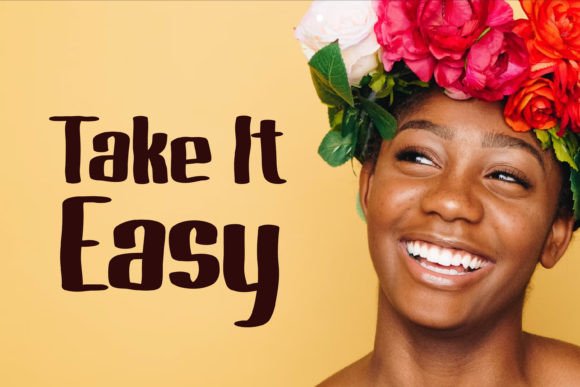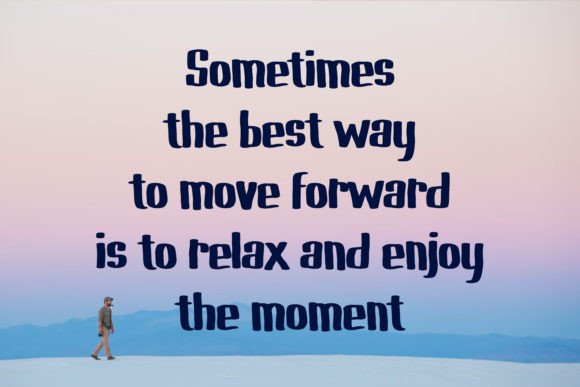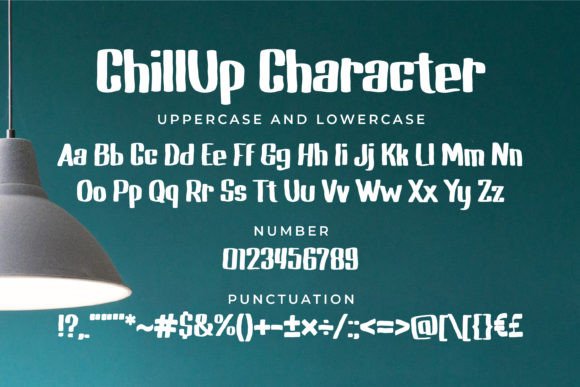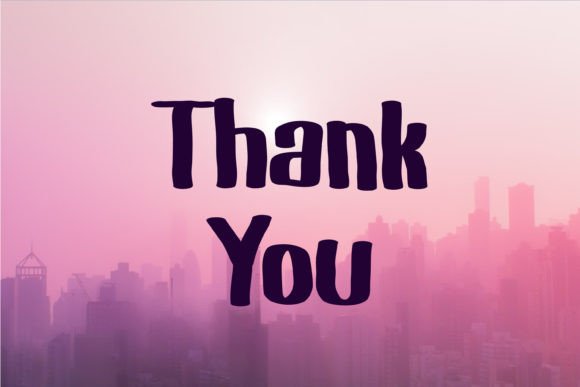
Introducing ChillUp: The Ultimate Playful Display Font for Creative Projects
Have you ever been in the middle of a design project, and suddenly, you just can’t seem to find the right font? I recall a particularly frustrating experience while working on a branding project for a trendy new coffee shop. The client wanted a font that was fun, casual, and conveyed a sense of relaxation. I scoured the internet, tried out countless fonts, but nothing seemed quite right. That was until I stumbled upon ChillUp, a handwritten playful display font that instantly brought a chill and joyful vibe to my designs!
What Makes ChillUp So Special?
ChillUp is more than just a font – it’s an experience. With its relaxed strokes and lively character, it’s perfect for projects that need a fun, casual, and creative flair. Whether you’re working on branding, posters, packaging, or social media content, ChillUp adds a refreshing touch that’s sure to capture attention.
My Honest Review of ChillUp
So, what do I love about ChillUp? Here are a few things that make it stand out:
- ✨ Unique and playful design: ChillUp has a one-of-a-kind look that’s sure to make your designs pop.
- ✅ Easy to read: Despite its playful nature, ChillUp is surprisingly easy to read, even at smaller font sizes.
- 💡 Versatile: ChillUp works well for a wide range of design projects, from branding to social media content.
Of course, no font is perfect, and ChillUp does have a few small quirks:
- 🤔 Limited use in formal contexts: ChillUp is a playful font, so it may not be the best choice for formal or professional projects.
- ⚠️ Some characters may require manual kerning: While ChillUp is generally well-spaced, some characters may require manual kerning to achieve optimal results.
The Story Behind ChillUp
ChillUp was designed with one goal in mind: to create a font that would bring a sense of relaxation and joy to designs. Its creator, a talented type designer, was inspired by the laid-back vibes of a California beach town. The result is a font that’s perfect for any project that needs a fun, casual touch.
| What type of projects is ChillUp best suited for? | ChillUp is perfect for projects that need a fun, casual, and creative flair, such as branding, posters, packaging, and social media content. |
| Is ChillUp easy to read? | Yes, despite its playful nature, ChillUp is surprisingly easy to read, even at smaller font sizes. |
| Does ChillUp support OpenType features? | Yes, ChillUp supports OpenType features, such as glyphs and stylistic alternates, which can add more creativity to your text. |